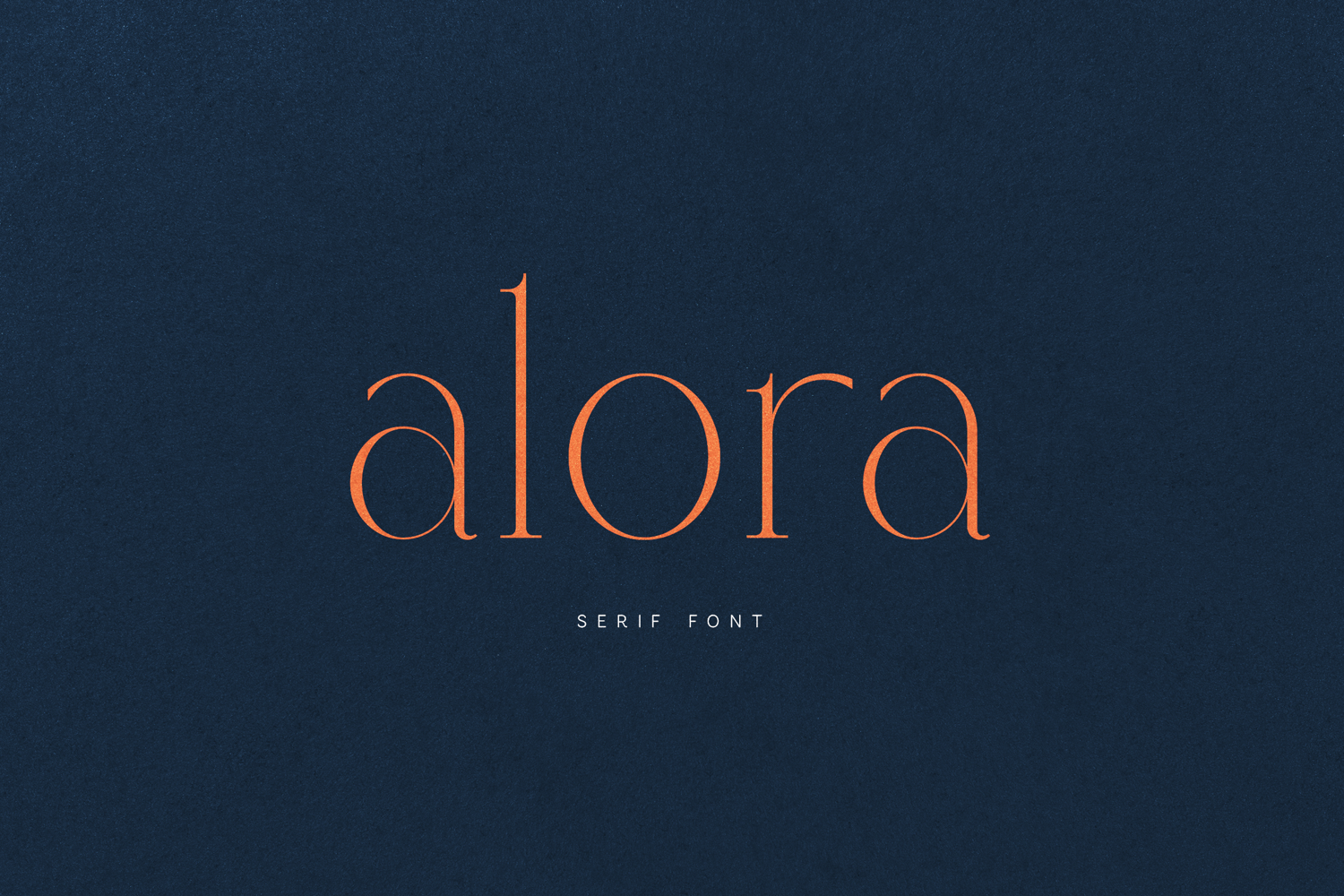
Alora Serif Font Modern Luxury Display Typeface
Alora Serif is a refined, high-contrast serif typeface designed for sophisticated branding and elevated editorial design.
With its graceful curves, delicate serifs, and elegant vertical stress, Alora Serif delivers a timeless yet modern luxury feel. The letterforms are carefully balanced to create dramatic headlines while maintaining readability and refinement.
This typeface shines in large-scale typography, making it perfect for:
• Fashion branding
• Beauty packaging
• Luxury logos
• Editorial layouts
• Magazine headlines
• Wedding stationery
• High-end marketing materials
Alora Serif includes uppercase, lowercase, numerals, punctuation, and extended Latin characters to support multiple languages — making it both beautiful and professionally versatile.
Clean. Elegant. Confident. Contemporary.
Alora Serif turns words into statements.